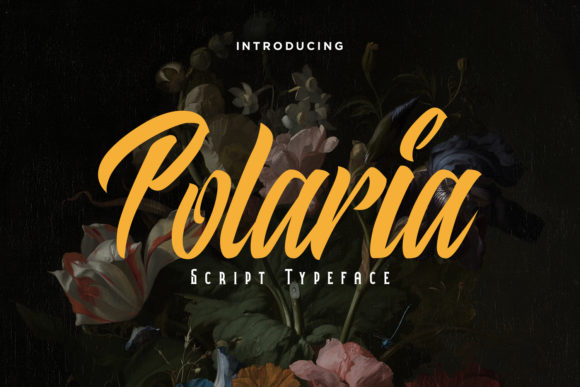
Unleash the allure of Polaria, a script font family that promises to transform your creative projects into breathtaking masterpieces. Created by the renowned typotopia, Polaria is a thick-lettered, flowing handwritten font that exudes style and strength, ensuring that every design you create will command attention.
With Polaria, you'll embark on a journey of artistic expression, where your words and designs will dance together in perfect harmony. Its elegant curves and bold strokes will add a touch of sophistication to your wedding invitations, logos, branding materials, and social media posts.
Imagine your wedding invitations adorned with Polaria's exquisite lettering, conveying the joy and elegance of your special day. The thick, flowing characters will create a sense of timeless romance, capturing the essence of your love story in every stroke. Your guests will be captivated by the beauty of the font, setting the tone for an unforgettable celebration.
Polaria's versatility extends beyond wedding designs. Its strong lettering and stylish appearance make it the perfect choice for branding and marketing materials. Create logos that leave a lasting impression, business cards that demand attention, and social media posts that inspire and engage your audience.
With Polaria, you'll discover a world of creative possibilities, where your imagination knows no bounds. Its thick, bold strokes add a touch of playfulness and whimsy to your designs, while its flowing curves bring a sense of grace and elegance.
Don't settle for ordinary fonts that blend into the background. Embrace the uniqueness of Polaria and let your creativity soar. Immerse yourself in a world of artistic expression and create designs that captivate and inspire.